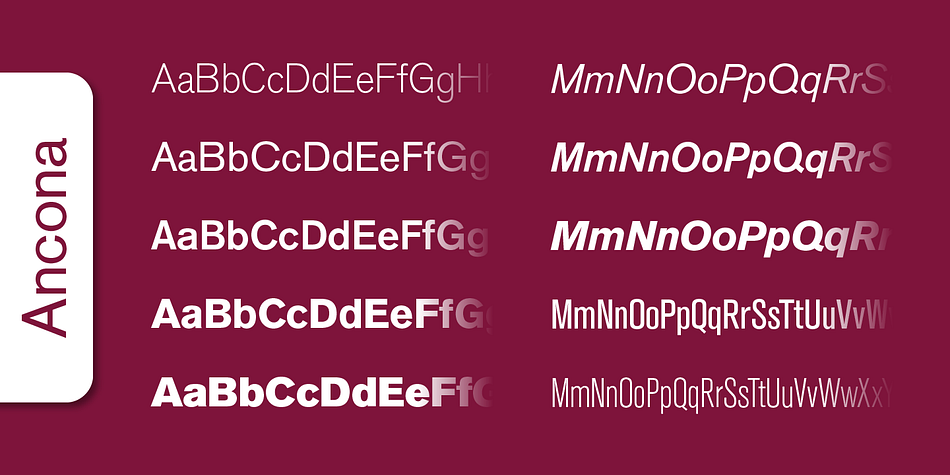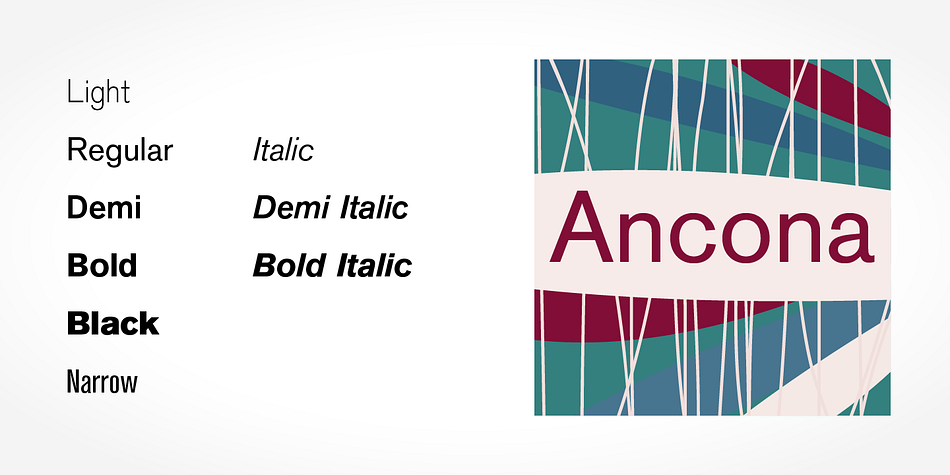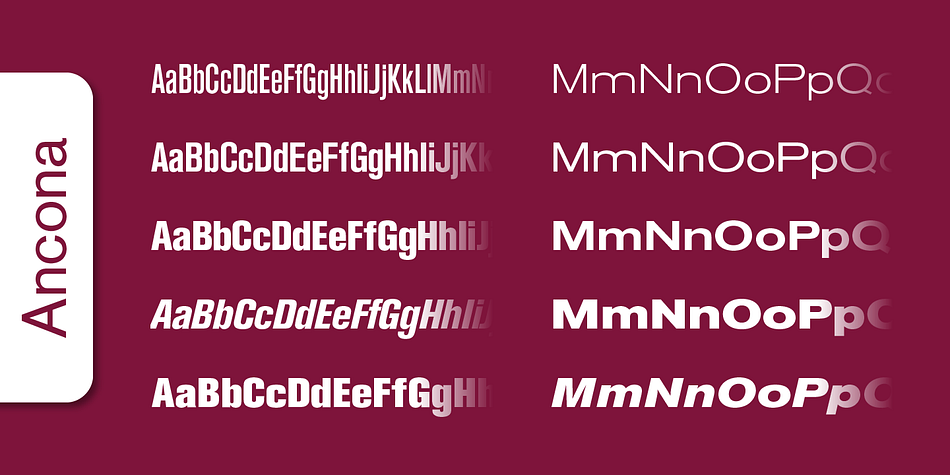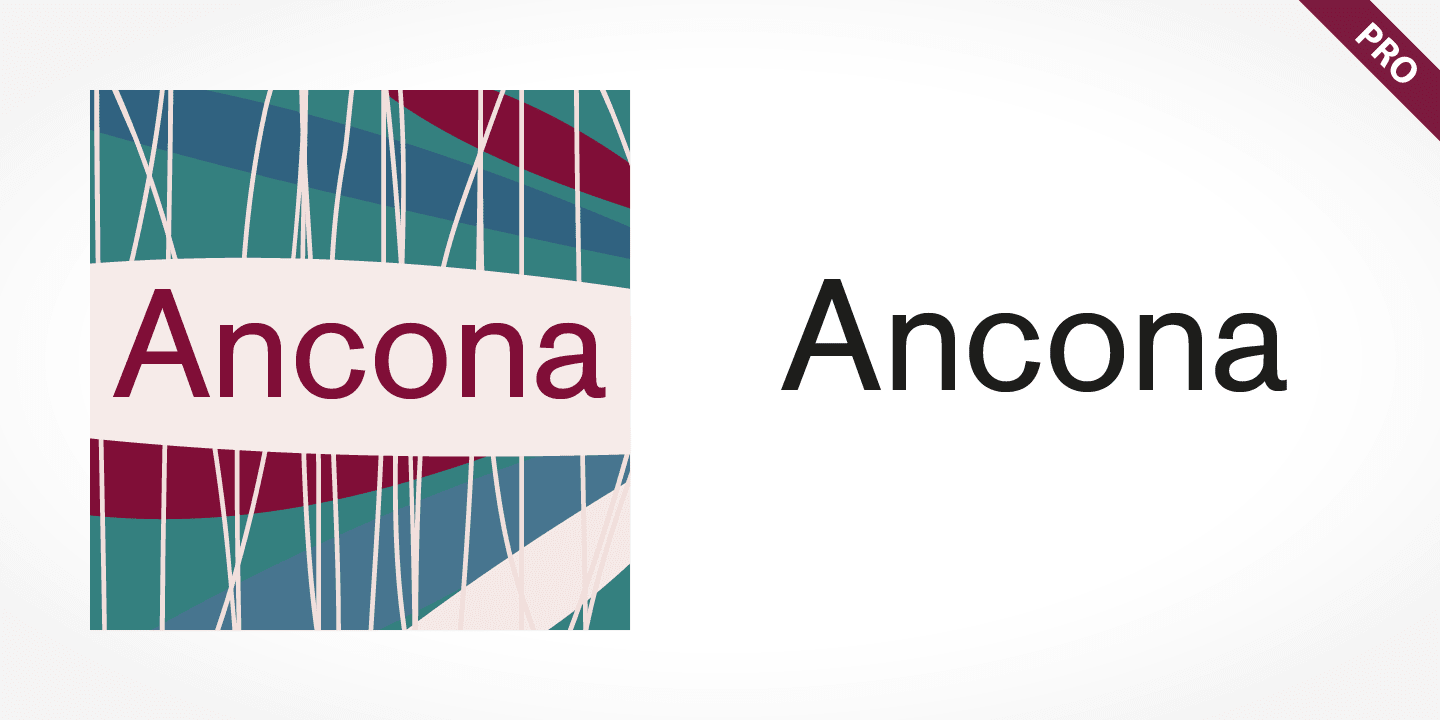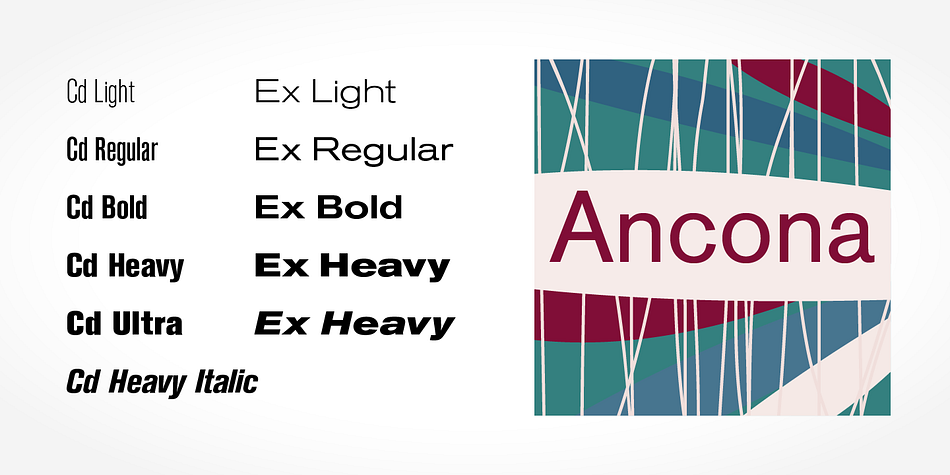
Ancona Pro
Ancona Pro is a sans serif font family. This typeface has twenty styles and was published by SoftMaker.
Ancona Pro is a general-purpose, unadorned sans-serif typeface by designed by SoftMaker.
‘Monoline’ in structure, with all strokes of the letter of similar width. This gives a sense of simplicity and an absence of the adornment and flourishes seen in the more decorative sans-serifs of the late nineteenth century influenced by the Art Nouveau style